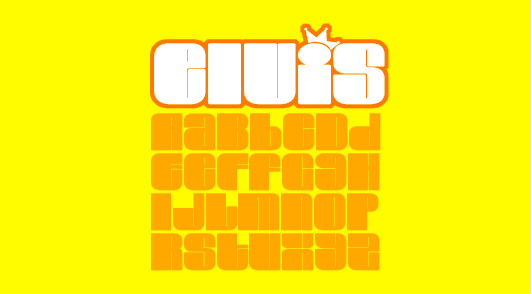
Why doesn't anyone name their kids Elvis? I named my new font Elvis. It has nothing to do with the rock 'n' roll legend, although there is a crown on the "i". Seriously, people name their kids "Jesus" these days, but no one names their kids "Madonna". What's up with that noise? Someone totally needs to give their kid the name of Elvis. Its not like I'm asking you to name the baby "Rambo" or anything like that. But we need more Elvises in the world.